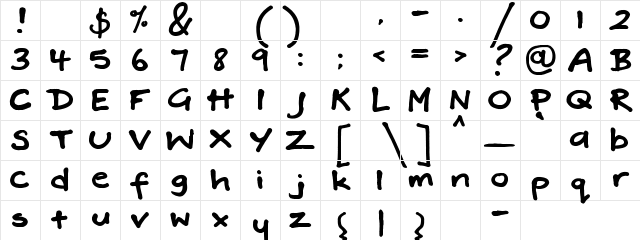
Label Marker Regular
Design Context for Label Marker
Label Marker is a composed and adaptable typeface that performs quietly and consistently across a wide range of design contexts.